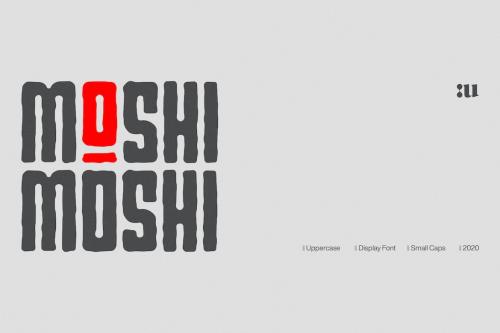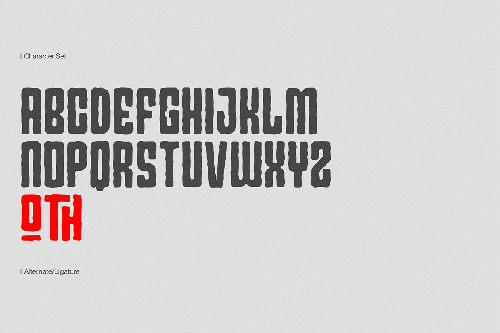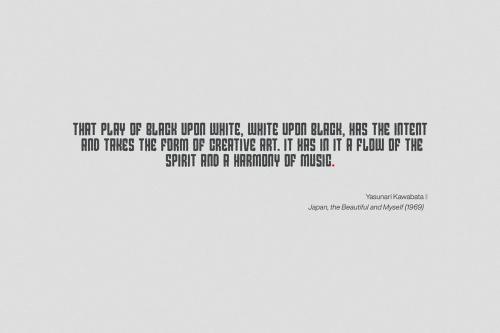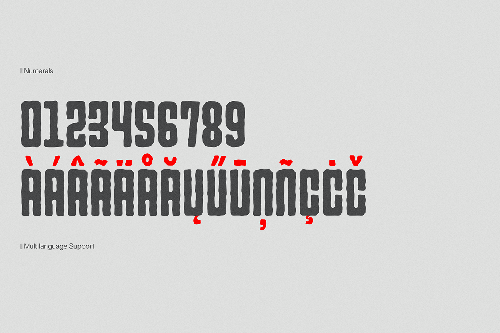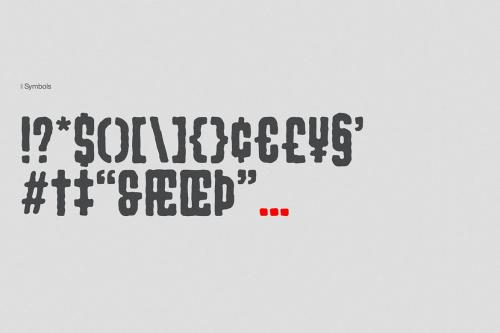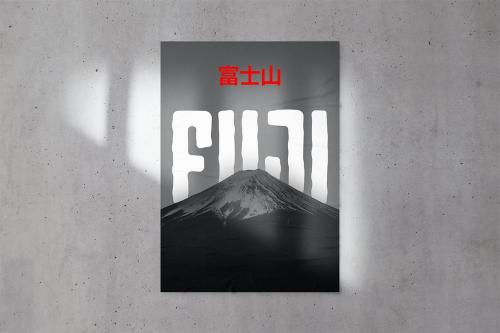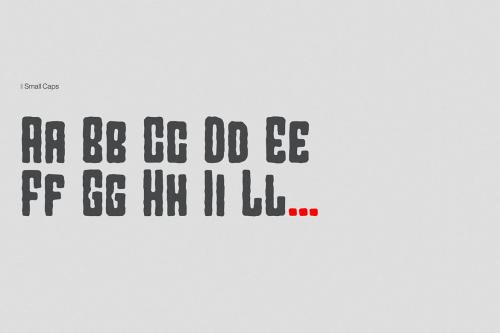
Introducing **“Moshi Moshi”** – Inspired by Japanese street posters, this all-caps block typeface delivers modernness with some brushy imperfections.
Taking inspiration from Japanese hand-painted street art, "Moshi Moshi" has rough letterforms, but at the same time communicates a modern and minimalistic style.
"Moshi Moshi" includes full multilingual capabilities and a coverage of several languages based on the Latin alphabet. Ideal to add an eye-catching appeal to your logo designs, branding, quotes, product packaging, merchandise and social media posts.
- **OpenType features (Small-Caps, Alternate & Ligature)**